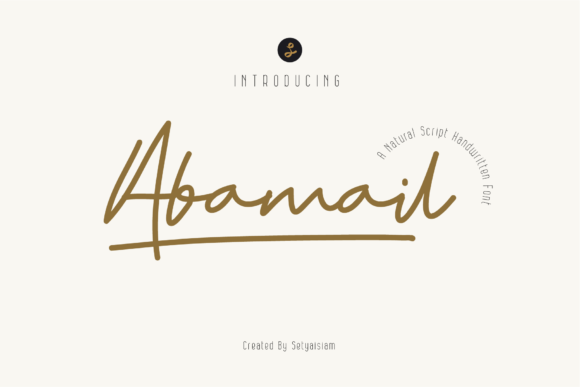
The Abamail Font: A Beautiful Handwritten Addition to Your Design Toolbox
I’ll never forget the time I was working on a branding project for a small business, and I just couldn’t seem to find the perfect font. The client wanted something that felt personal and approachable, but still professional. I spent hours scouring the internet, trying out font after font, until I finally stumbled upon Abamail. It was like a breath of fresh air – a beautiful, handwritten font that perfectly captured the tone and personality of the brand. In this article, I’ll share my love for Abamail, and provide a comprehensive guide on how to use it in your designs.
An Honest Review of Abamail
So, what makes Abamail so special? Here are a few things I love about this font:
- ✨ Beautiful handwritten feel: Abamail has a lovely, organic feel that’s perfect for designs that need a personal touch.
- ✅ Highly versatile: Whether you’re working on a logo, brochure, or social media graphics, Abamail is a great choice.
- 💫 Easy to read: Despite its handwritten feel, Abamail is surprisingly easy to read, even at smaller sizes.
Of course, no font is perfect, and Abamail does have a few small quirks:
- 🤔 Limited character set: Abamail doesn’t have an extensive character set, so you may need to get creative if you need to use non-standard characters.
- ⚠️ Not ideal for body text: While Abamail is easy to read, it’s still a handwritten font, and may not be the best choice for longer blocks of text.
The Story Behind Abamail
Abamail was designed by a talented typographer who wanted to create a font that felt personal and approachable. With its beautiful handwritten feel and highly versatile design, it’s no wonder Abamail has become a favorite among designers and crafters.
| Font Name | Abamail Font |
| Author | setyaisiam |
| What is Abamail? | Abamail is a beautiful handwritten font, perfect for designs that need a personal touch. |